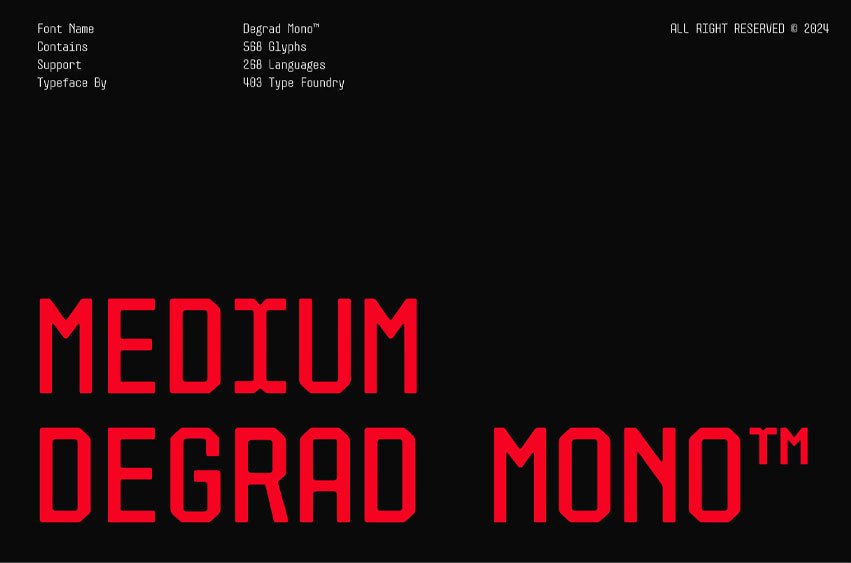
Medium Degrad Mono Font is an excellent choice for projects seeking a modern, structured, and tech-savvy typeface. Its versatility across styles enhances its usability in various design contexts. Each style boasts 568 meticulously crafted glyphs, supporting 268 languages, ensuring your message is always clear and impactful.
Perfect for posters, headlines, branding, and more, 403 Degrad Mono combines functionality with aesthetic appeal to elevate your design work.